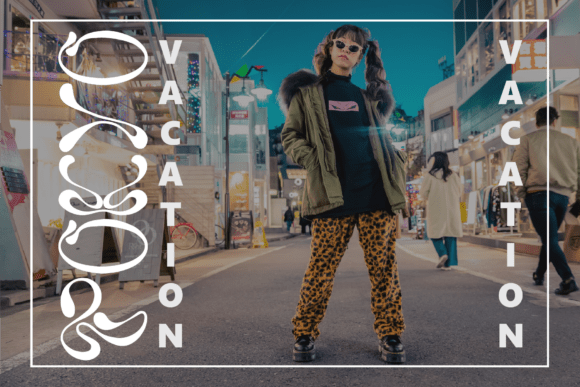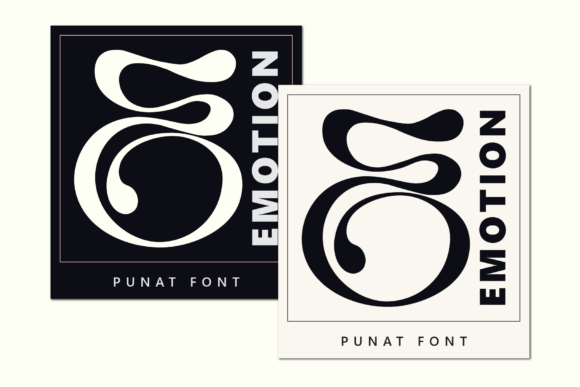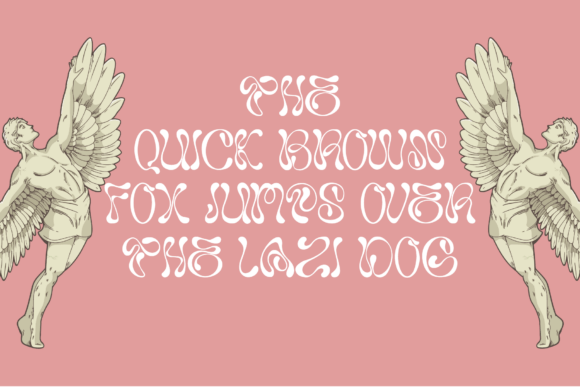
Introduction to Punat Font
Punat is a surreal, experimental display typeface that dances on the edge of chaos and elegance.
Its fluid, liquefied letterforms stretch and morph like ink in water, evoking a dreamlike aesthetic that’s both psychedelic and artistic The letters twist and flow with organic rhythm, making them ideal for statement visuals where form is as important as function.